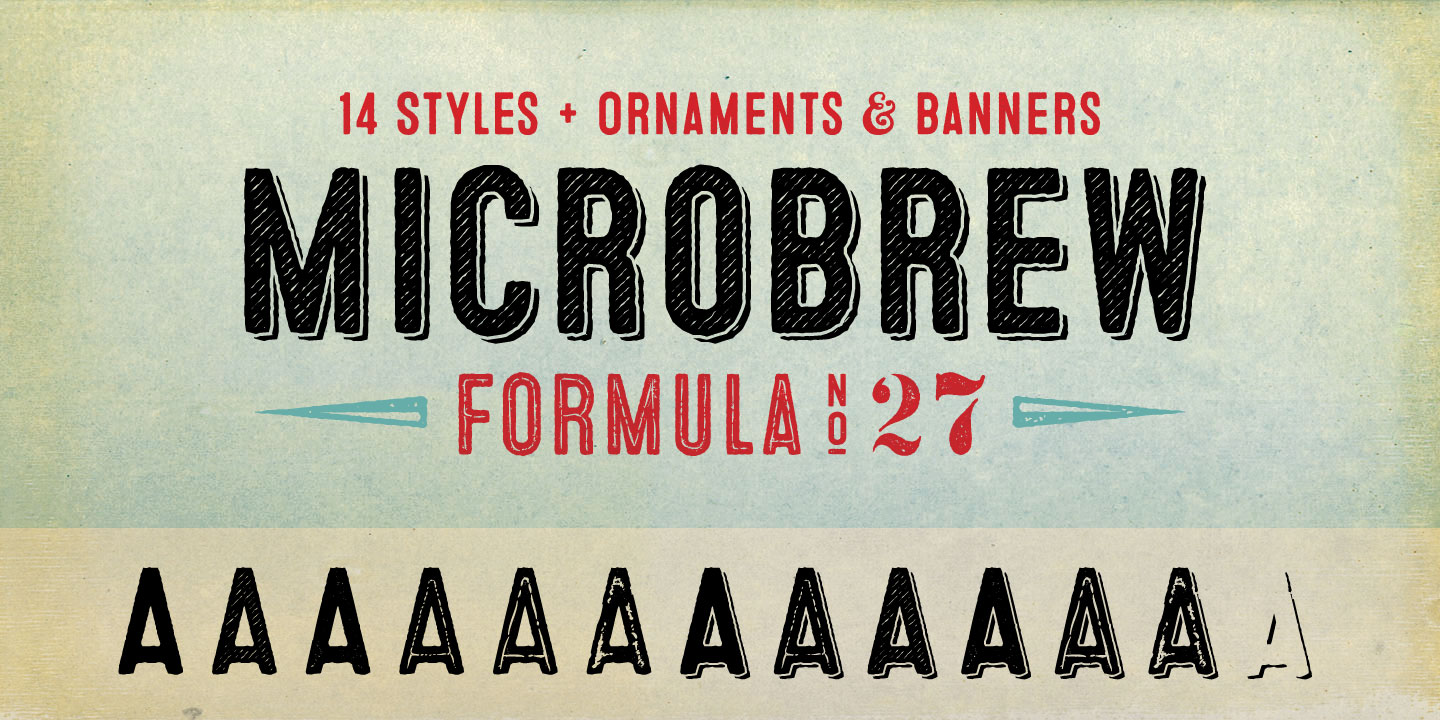
Microbrew Font Free Download is a handcrafted, rustic typeface perfect for branding craft beers, artisanal products, menus, and packaging. Its vintage-inspired letterforms bring an authentic, homegrown feel to any design.
Whether you're designing brewery logos, pub signage, or event posters, Microbrew Font Free Download adds warmth and character that resonates with audiences seeking quality and tradition. Its readability and charm make it ideal for both print and digital media.